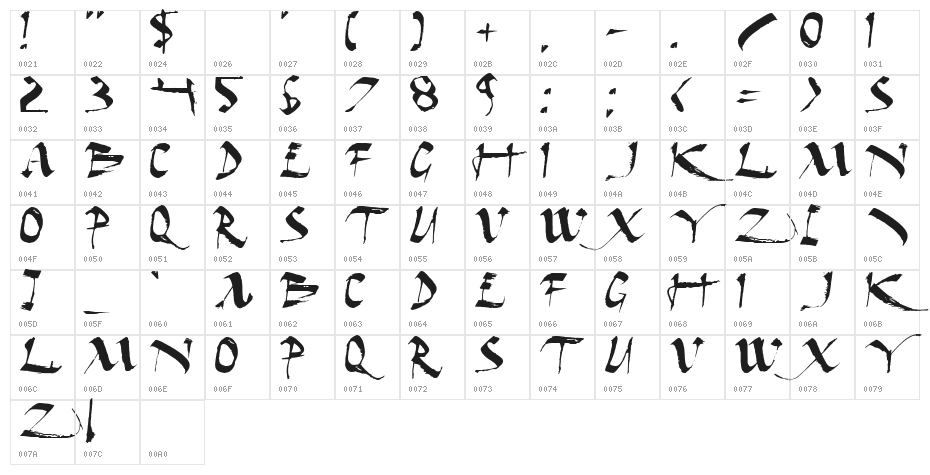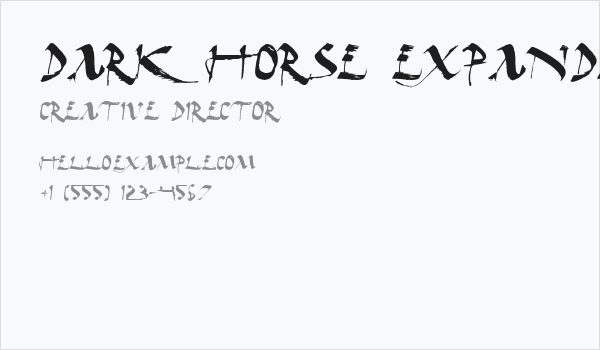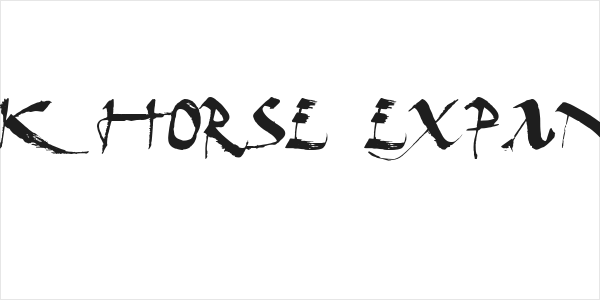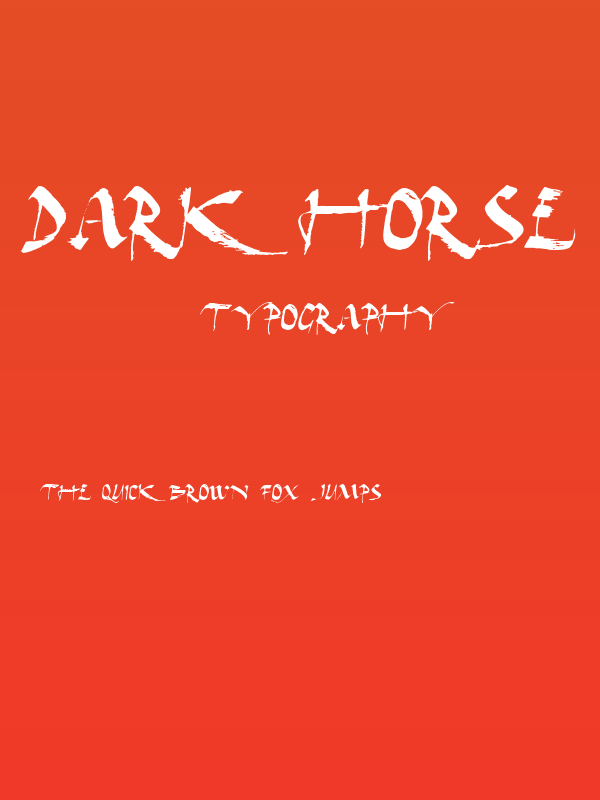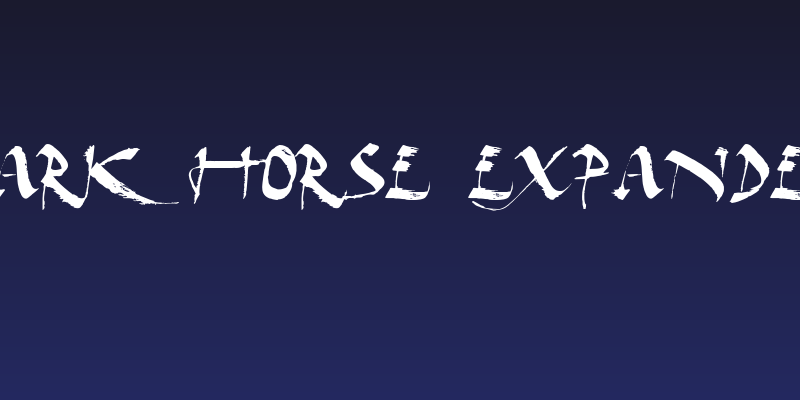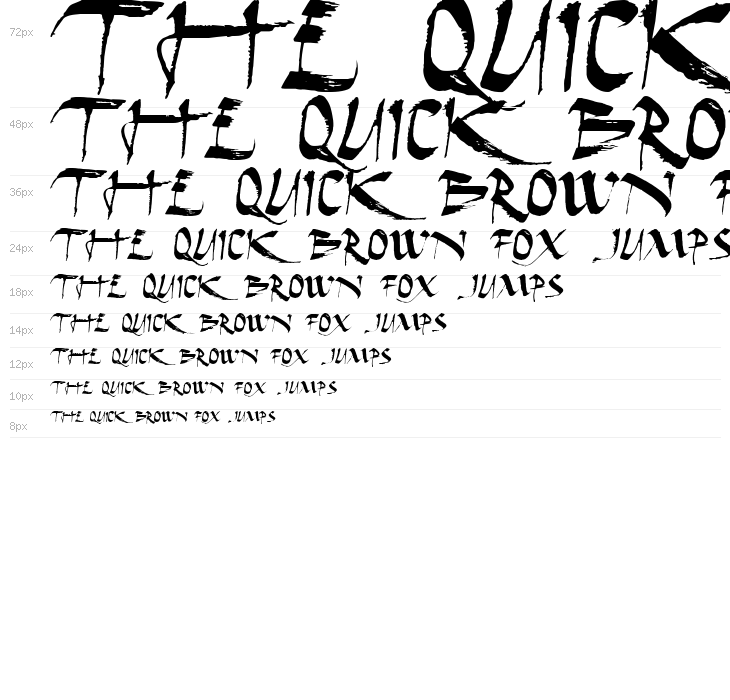
Dark Horse Expanded Font
Dark Horse Expanded Description
This font exudes a bold and dynamic energy, characterized by its brushstroke-like appearance. The letters are crafted with a sense of movement and fluidity, giving them an artistic and expressive quality. The strokes vary in thickness, adding a dramatic flair and high contrast to the overall design. The uppercase and lowercase letters maintain a consistent style, with sharp angles and sweeping curves that suggest speed and agility. The numbers and special characters follow suit, ensuring a cohesive look across all elements. This font is ideal for projects that require a strong visual impact and a touch of creativity.
| Overall Style | Modern, Artistic |
| Proposed Projects | Perfect for posters, album covers, branding, and any creative project needing a bold statement. |